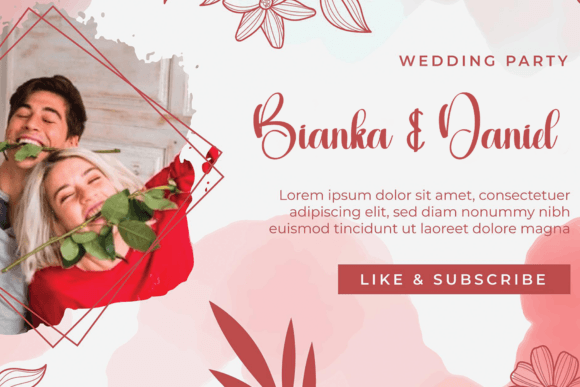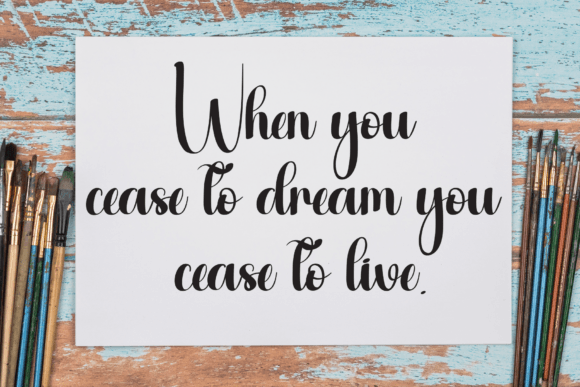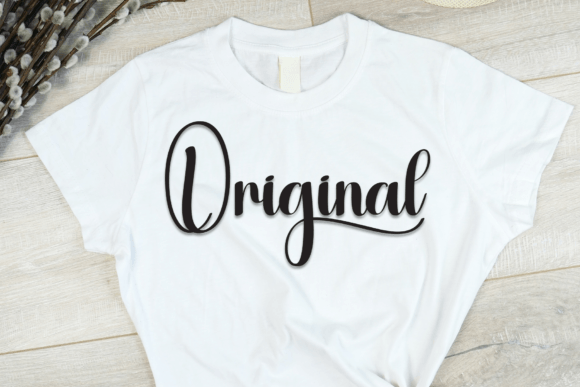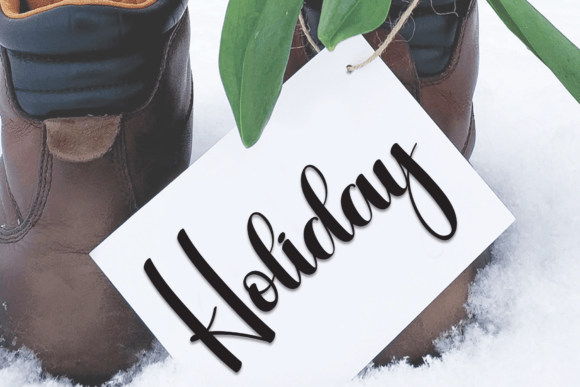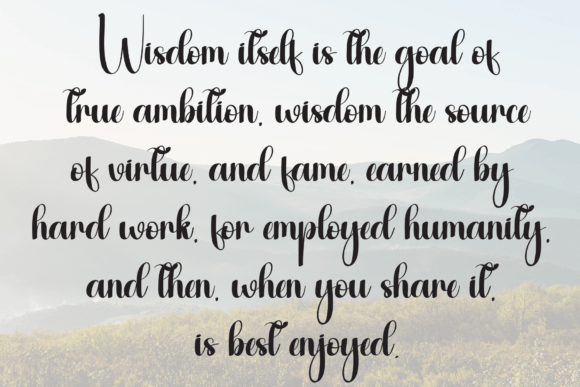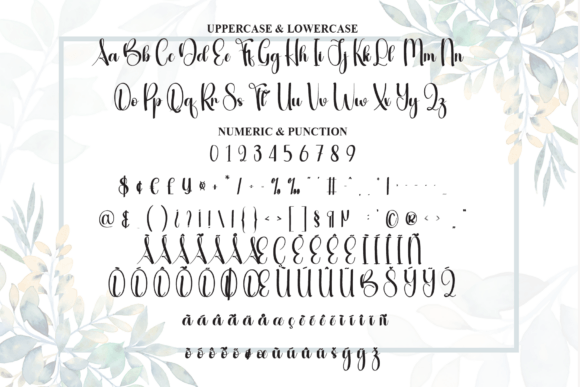
Introducing Angelina Font: The Perfect Hand-Drawn Display Font for Charming Personal Messages
Are you a designer or crafter looking for a font that can add a touch of whimsy and joy to your digital artwork? Look no further than Angelina Font, a delightful and inviting hand-drawn display font that’s perfect for crafting charming personal messages. In this article, we’ll take a closer look at the features and benefits of Angelina Font, and explore how it can be used to create beautiful and eye-catching designs.
A Font that Spreads Joy and Whimsy
Angelina Font is a playful font that’s designed to bring a smile to your face. Its hand-drawn letterforms are full of personality and charm, making it the perfect choice for designers and crafters who want to add a touch of whimsy to their work. Whether you’re creating wedding invitations, greeting cards, or any other type of digital artwork, Angelina Font is the perfect choice for adding a jubilant sprinkle of joy.
Key Features of Angelina Font
So, what makes Angelina Font so special? Here are just a few of its key features:
- Hand-drawn letterforms: Each letterform in Angelina Font is carefully hand-drawn, giving the font a unique and personal touch.
- Playful and whimsical: Angelina Font is designed to be playful and whimsical, making it perfect for designs that require a touch of personality.
- Perfect for personal messages: Whether you’re creating wedding invitations, greeting cards, or social media graphics, Angelina Font is the perfect choice for crafting charming personal messages.
Uses for Angelina Font
So, how can you use Angelina Font in your designs? Here are just a few ideas to get you started:
- Wedding invitations: Angelina Font is the perfect choice for creating beautiful and eye-catching wedding invitations that will set the tone for the big day.
- Greeting cards: Whether you’re creating birthday cards, Christmas cards, or any other type of greeting card, Angelina Font is a great choice for adding a touch of personality and whimsy.
- Social media graphics: Angelina Font is also a great choice for creating social media graphics that require a touch of personality and charm.
- Digital artwork: Whether you’re creating illustrations, graphics, or any other type of digital artwork, Angelina Font is a great choice for adding a touch of whimsy and joy.
Tips for Using Angelina Font
Here are a few tips for getting the most out of Angelina Font:
- Experiment with different colors: Angelina Font looks great in a variety of colors, so don’t be afraid to experiment and find the perfect color scheme for your design.
- Use it with other fonts: Angelina Font pairs well with other fonts, so feel free to use it in combination with other fonts to create a unique and eye-catching design.
- Play with different sizes: Angelina Font looks great in a variety of sizes, so don’t be afraid to experiment and find the perfect size for your design.
In conclusion, Angelina Font is a delightful and inviting hand-drawn display font that’s perfect for crafting charming personal messages. Its playful and whimsical letterforms make it the perfect choice for designers and crafters who want to add a touch of joy and personality to their work. Whether you’re creating wedding invitations, greeting cards, or any other type of digital artwork, Angelina Font is a great choice for adding a touch of whimsy and charm. So why not give it a try and see the difference it can make in your designs?